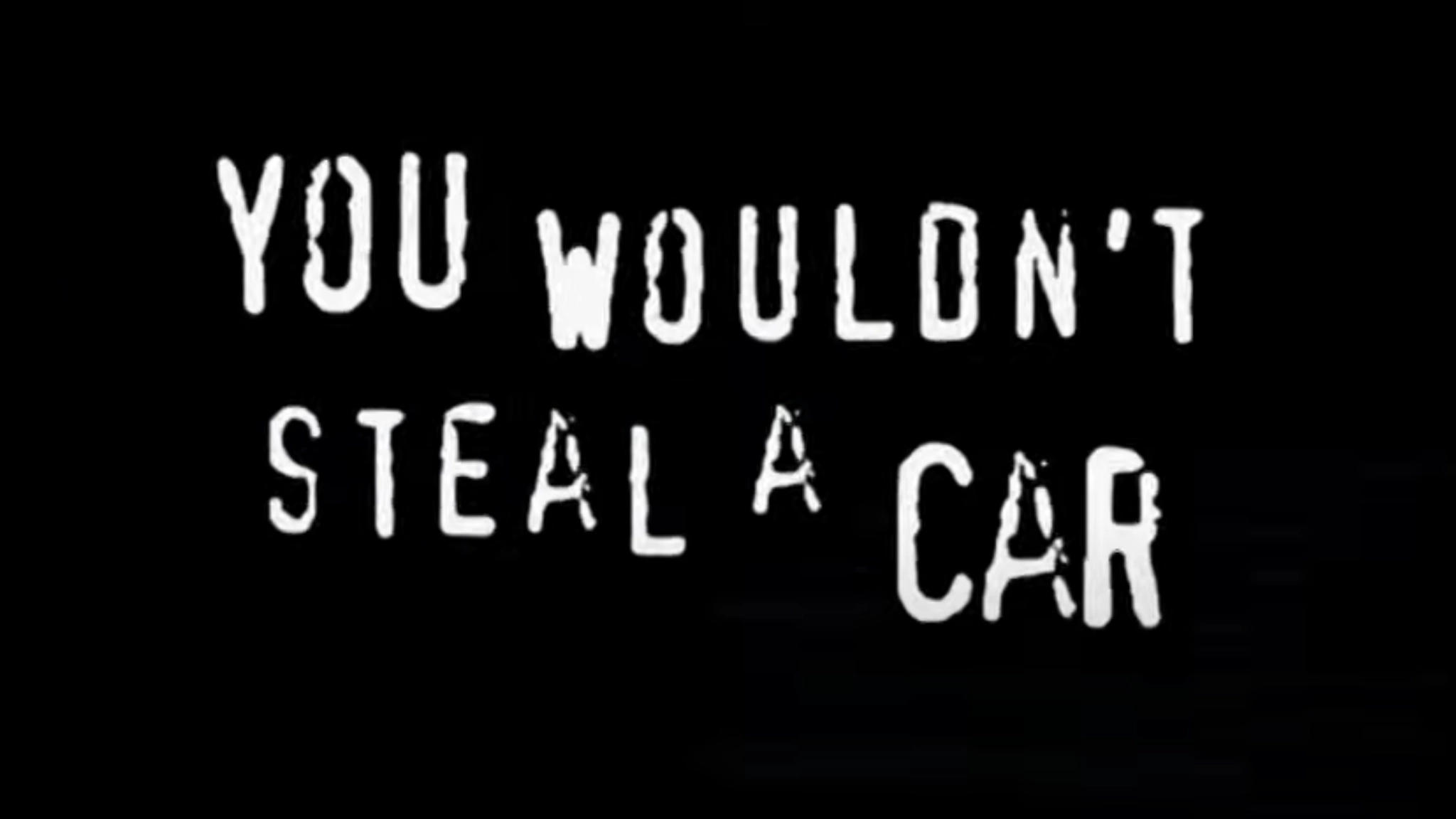
So those anti-piracy ads may have 'stolen' a font? The hypocrisy is astounding
Anyone who went to a cinema or watched a DVD in the mid 2000s will remember the Federation Against Copyright Theft and Motion Picture Association of America's pounding pre-movie lecture. Famous for the line "You wouldn't steal a car," the public service ads compared downloading films to stealing cars, TVs and handbags.
Whether the ad did more to prevent piracy or promote it is in doubt – it taught a lot of people that films could be downloaded and made doing so look quite exhilarating. But the ads gained a place in popular culture, leading to memes and spoofs that persist 20 years on.
Now it turns out that FACT's opposition to piracy may have been a bit selective. Online sleuths have found that the memorable stencil font used in the campaign may have been a free knockoff (they should have chosen from our pick of the best free fonts if they couldn't afford a licence).
Writing on BlueSky, the data reporter and Python programmer Melissa Lewis notes that the You wouldn't steal a car font appears to be FF Confidential, which was created by the Dutch type designer Just van Rossum.
But this font was later cloned without permission and released for free with the name XBAND Rough. This copy is the font that's used in many parodies of the ad. So which one did the original anti-piracy ads use?
Another Bluesky user dug deeper and used FontForge on a PDF from an archived version of the campaign website. And it seems that FACT used the cloned font rather than the licensed one.
The evidence isn't completely conclusive. We don't know whether FACT had a licence to use FF Confidential in other assets in the campaign (the font is now sold by MyFonts by Monotype). Also, copying a typeface is not always illegal depending on how it's done – although it creates a stench of hypocrisy for an anti-piracy campaign.
The case highlights the often complex nature of font licensing and copyright, and the frequent lack of awareness about both. Even among designers, there's often a relaxed attitude to font piracy. It can be hard to get clients to understand why they would need to pay for a typeface, and many don't see the value in a font they think looks similar to a generic option.
Several big brands have been sued by type foundries for using fonts without the correct licence (or any licence), but dealing with copies can be complicated.
In the US, typefaces generally can't be copyrighted because it's difficult for their creators to prove originality when they may look quite similar to others. As a result there are many typefaces that are close copies of existing popular fonts (including the best Star Wars fonts)